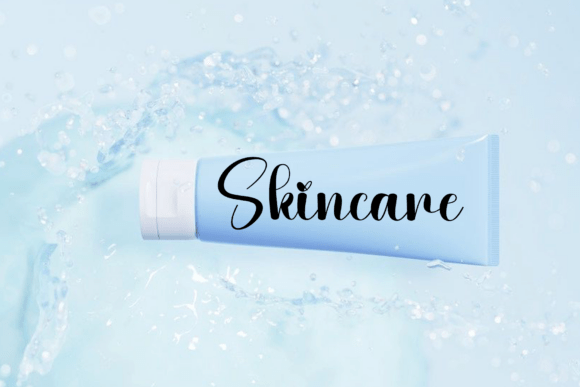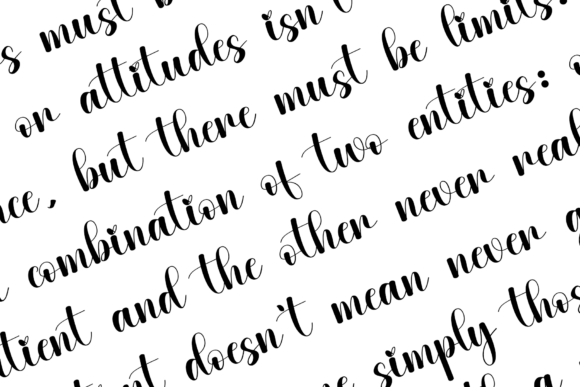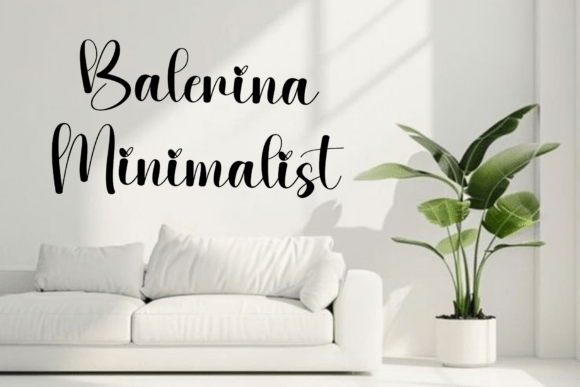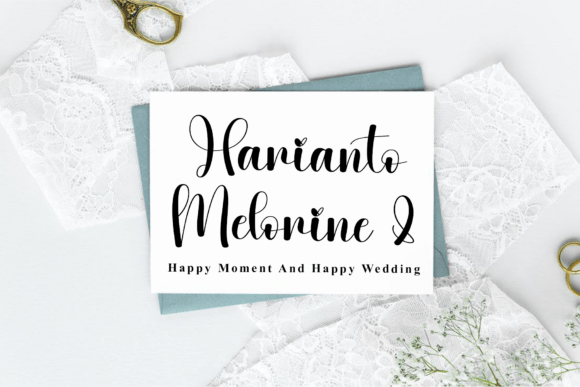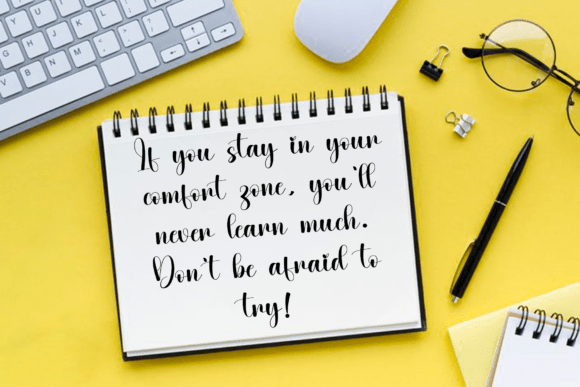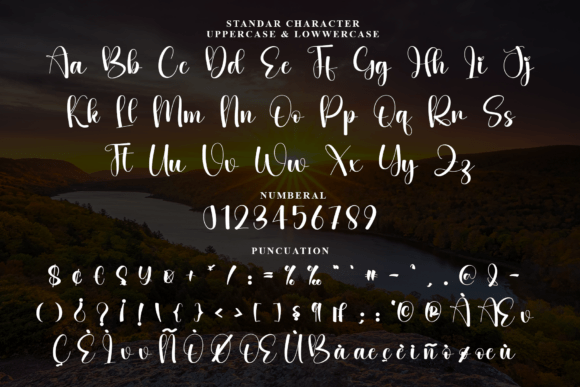
Introduction to Shining Christmas Font
Shining Christmas is a modern handwritten script font that combines elegance with a personal touch.
Its fluid strokes and gentle curves mimic the natural flow of real handwriting, making it perfect for wedding invitations, logos, stationery, Instagram quotes, and branding projects This font is both sophisticated and accessible, with just the right amount of flair to elevate your designs while maintaining readability.
Key Features of Shining Christmas Font
Why Choose Shining Christmas Font?
Shining Christmas Font offers exceptional quality and versatility, making it a valuable addition to your design toolkit. Whether you’re creating for personal projects or commercial use, Shining Christmas Font delivers professional results.